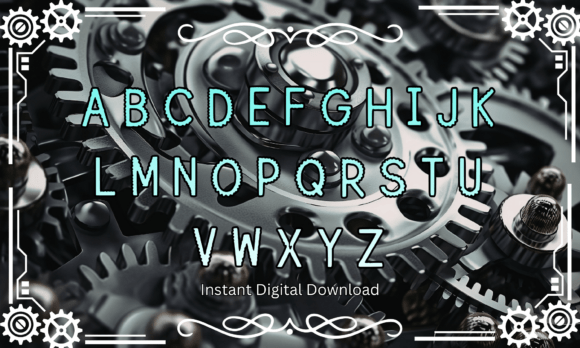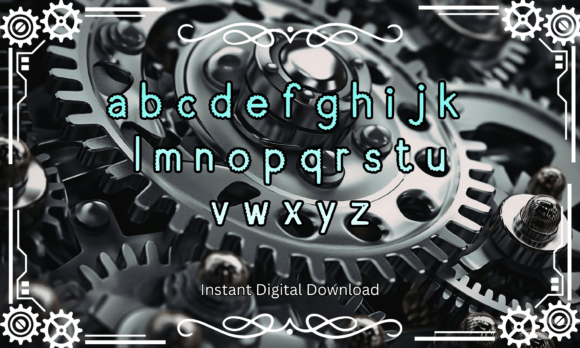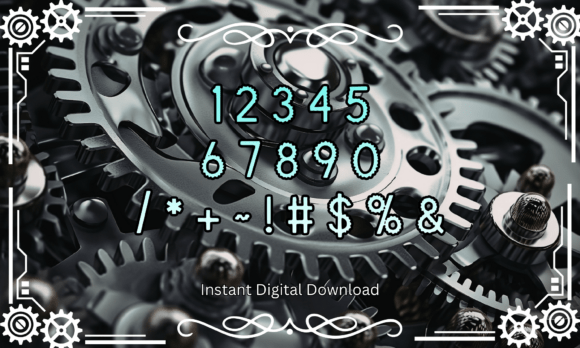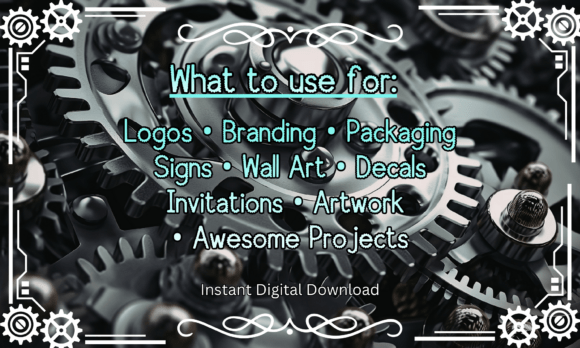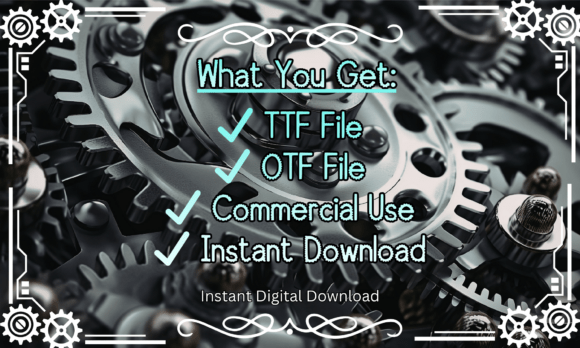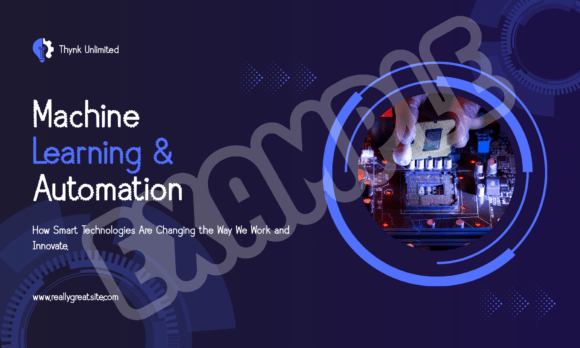
Bring Power and Precision into Your Designs with Gear Machine Font ⚙️
Are you looking for a font that can add a touch of industrial ruggedness and mechanical precision to your designs? Look no further than the Gear Machine Font. Inspired by the intricate metalwork and machinery of industrial settings, this font delivers a bold, engineered look that is sure to stand out in any project.
Whether you’re a designer, crafter, or DIY enthusiast, the Gear Machine Font is perfect for anyone who wants to add a strong, technical, and modern-industrial aesthetic to their work. With its rugged, mechanical edge, this font is ideal for a wide range of applications, from logos and branding to industrial designs, steampunk projects, and tech graphics.
Perfect For
The Gear Machine Font is perfect for a wide range of projects, including:
- Logos & Branding: Add a touch of industrial ruggedness to your logo or brand identity.
- Industrial Designs: Create technical drawings, diagrams, or schematics with a bold, mechanical edge.
- Steampunk Projects: Add a touch of science fiction flair to your steampunk-inspired designs.
- Tech & Engineering Graphics: Create technical graphics, diagrams, or charts with a modern-industrial aesthetic.
- Gaming Designs: Add a touch of industrial ruggedness to your game designs, logos, or branding.
- YouTube Thumbnails: Create eye-catching thumbnails with a bold, mechanical edge.
- Posters & Wall Art: Create striking posters or wall art with a modern-industrial aesthetic.
- Stickers & Vinyl Projects: Add a touch of industrial ruggedness to your stickers or vinyl projects.
Why Choose the Gear Machine Font?
There are many fonts on the market that claim to offer an industrial or mechanical aesthetic, but the Gear Machine Font stands out from the crowd. Here are just a few reasons why:
- Unique Design: The Gear Machine Font features a unique, hand-crafted design that is inspired by industrial machinery and metalwork.
Whether you’re a professional designer or a DIY enthusiast, the Gear Machine Font is a great choice for anyone who wants to add a touch of industrial ruggedness and mechanical precision to their designs.
Get Ready to Bring Power and Precision into Your Designs
With the Gear Machine Font, you’ll be able to add a bold, mechanical edge to your designs that will set them apart from the crowd. Whether you’re working on a logo, industrial design, or steampunk project, this font is sure to deliver a unique and striking aesthetic.